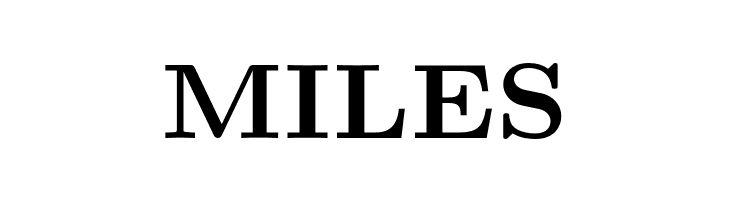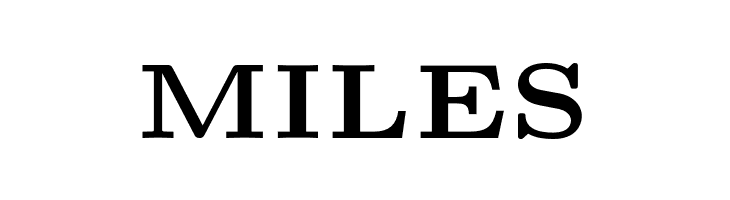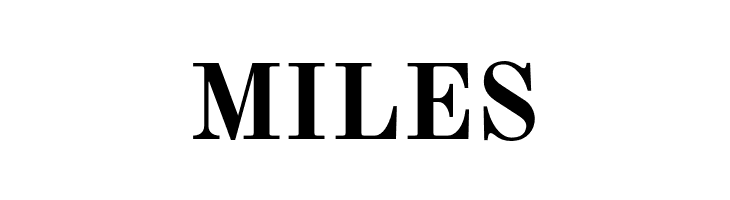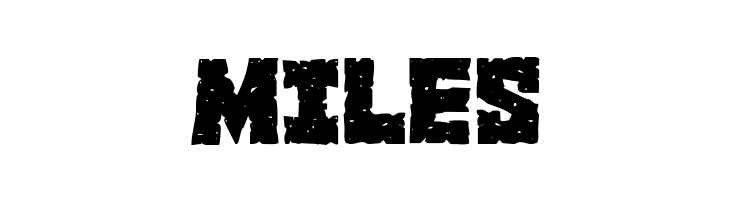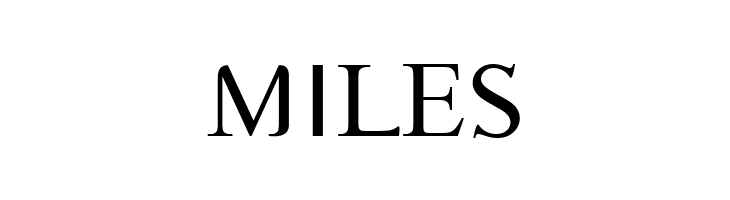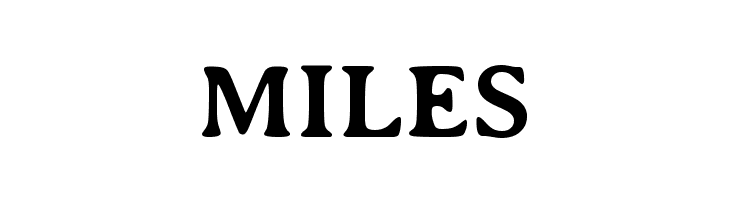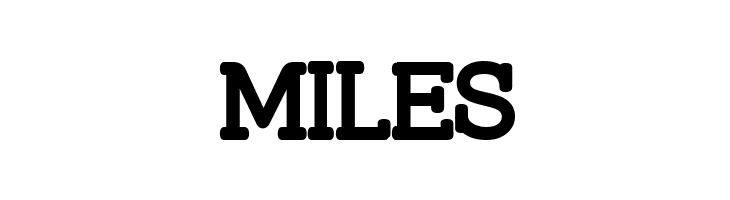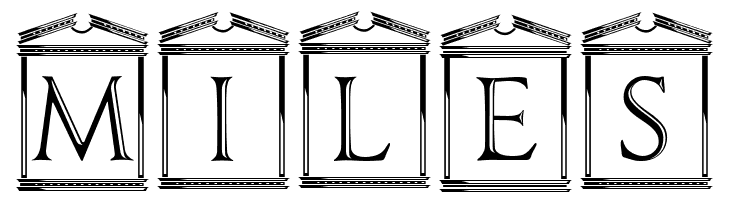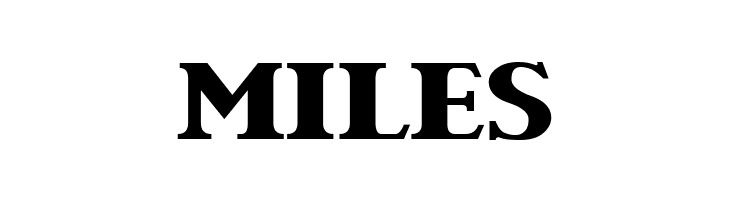
A bold, tall serif font with strong vertical emphasis and pronounced serifs.
A bold, classic serif font with high contrast and pronounced serifs.
A bold, classic serif font with strong strokes and elegant serifs.
A bold, distressed font with a rugged, military-inspired design.
A bold, serif font with strong strokes and a modern yet classic appeal.
A bold slab serif font with strong, block-like serifs and consistent stroke width.
A serif font with architectural pediment designs, exuding classical elegance.
A bold, heavy serif font with strong strokes and classic elegance.
A bold, classic serif font with strong strokes and elegant curves.
A bold serif font with classic, authoritative strokes and balanced proportions.
A bold, gothic-inspired font with sharp, angular strokes and a dramatic presence.
). ) A bold, classic serif font with sharp serifs and a traditional appearance.
). ) A classic serif font with elegant strokes and balanced proportions.
A bold, geometric font with a military-inspired design.
A bold, classic serif font with strong strokes and pronounced serifs.
A bold serif font with strong, elegant characters ideal for headlines.
A modern serif font with clean lines and balanced proportions.
A bold serif font with thick strokes and strong serifs, perfect for impactful headlines.
A classic serif font with elegant strokes and balanced structure.
A bold, classic serif font with moderate contrast and pronounced serifs.
A bold, classic serif font with strong strokes and traditional serifs.
A bold slab serif font with strong, block-like serifs and excellent readability.
) A modern slab serif font with strong lines and prominent serifs.
A classic serif font with elegant proportions and refined serifs.
A modern serif font with clean lines and balanced proportions.
A bold, classic serif font with medium contrast and elegant curves.
A modern serif font with clean lines and a classic yet contemporary style.
A heavy serif font with strong contrasts and a classic style.
A bold, slab serif font with strong, pronounced serifs and consistent stroke width.